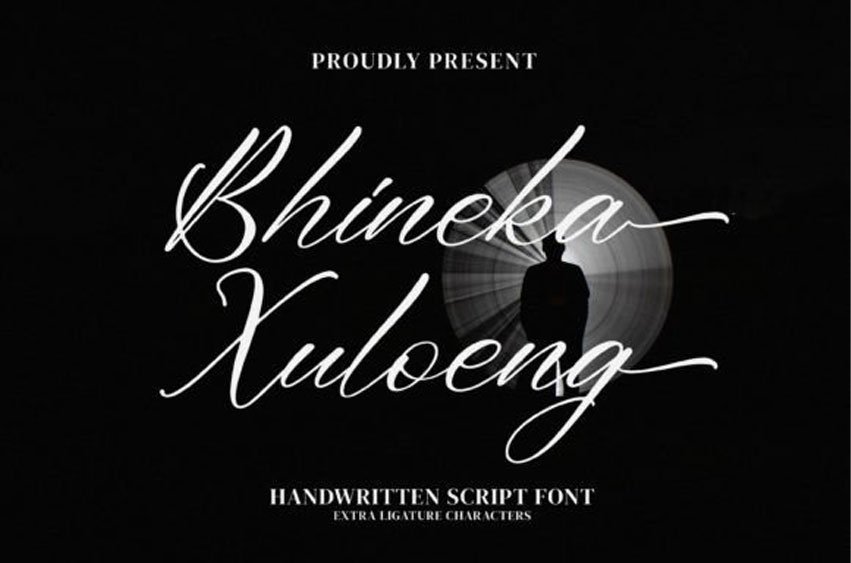
Bhineka Xuloeng Font is a sophisticated handwritten script font.
This lovely font is suitable for logos, branding projects, homeware designs, product packaging, mugs, quotes, posters, shopping bags, t-shirts, book covers, name cards, invitation cards, greeting cards, labels, photography, watermark, and special events.